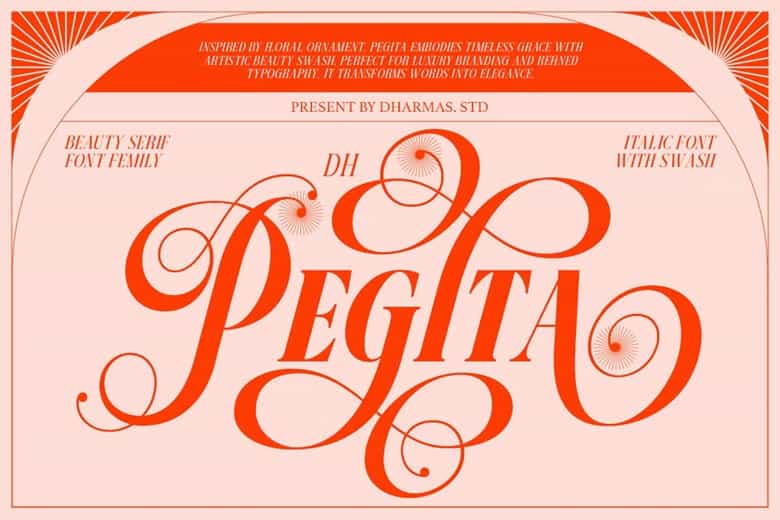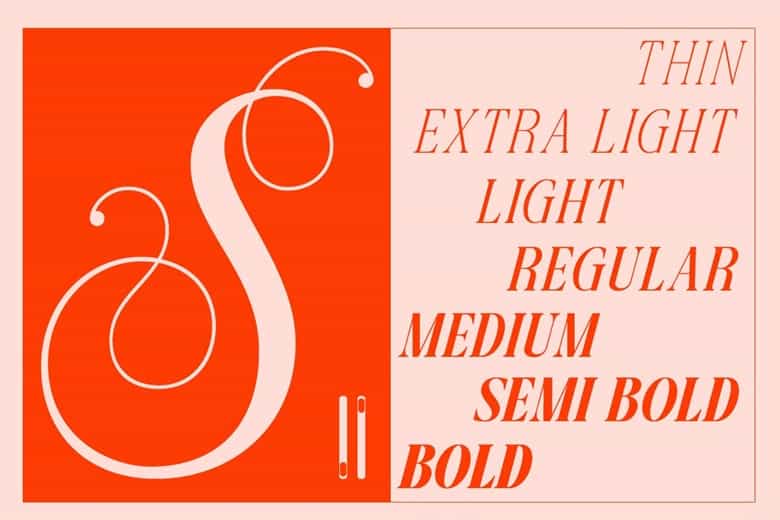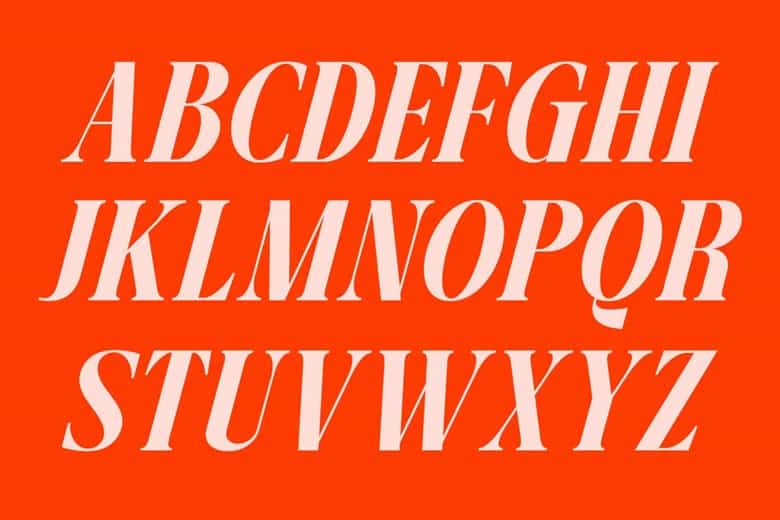
The Dh Pegita typeface takes its inspiration from floral ornamentality to create a refined serif display format. Dh Pegita provides high-end design project suitability through its combination of classic elegance with present-day utility which it delivers across sophisticated design applications. The font weights including Thin, Extra Light, Light, Regular, Medium, and Semi Bold as well as Bold give Dh Pegita universal application potential for multiple design requirements.